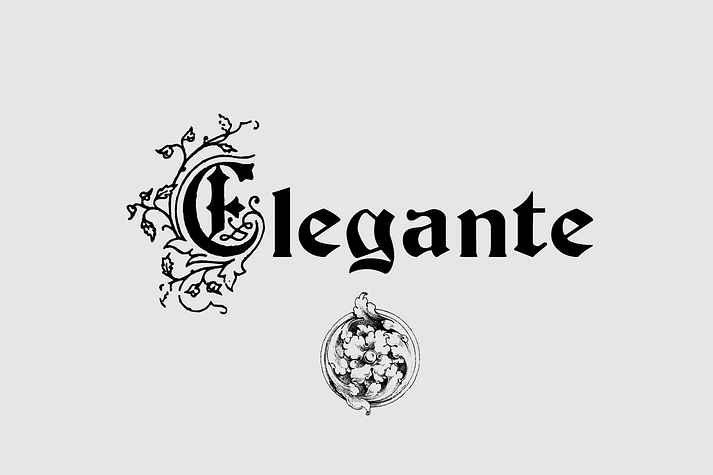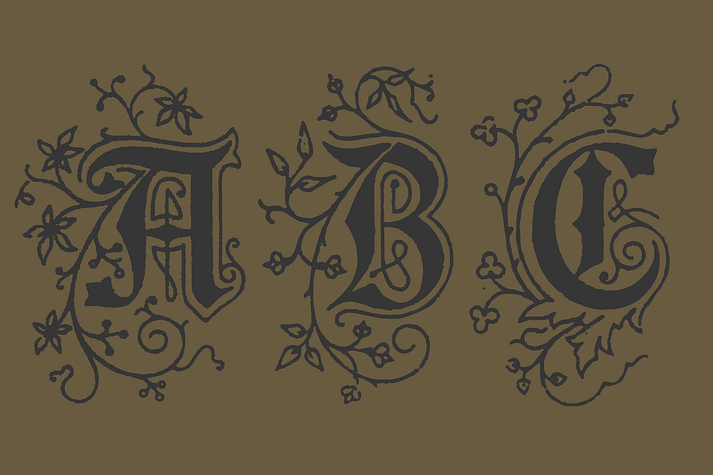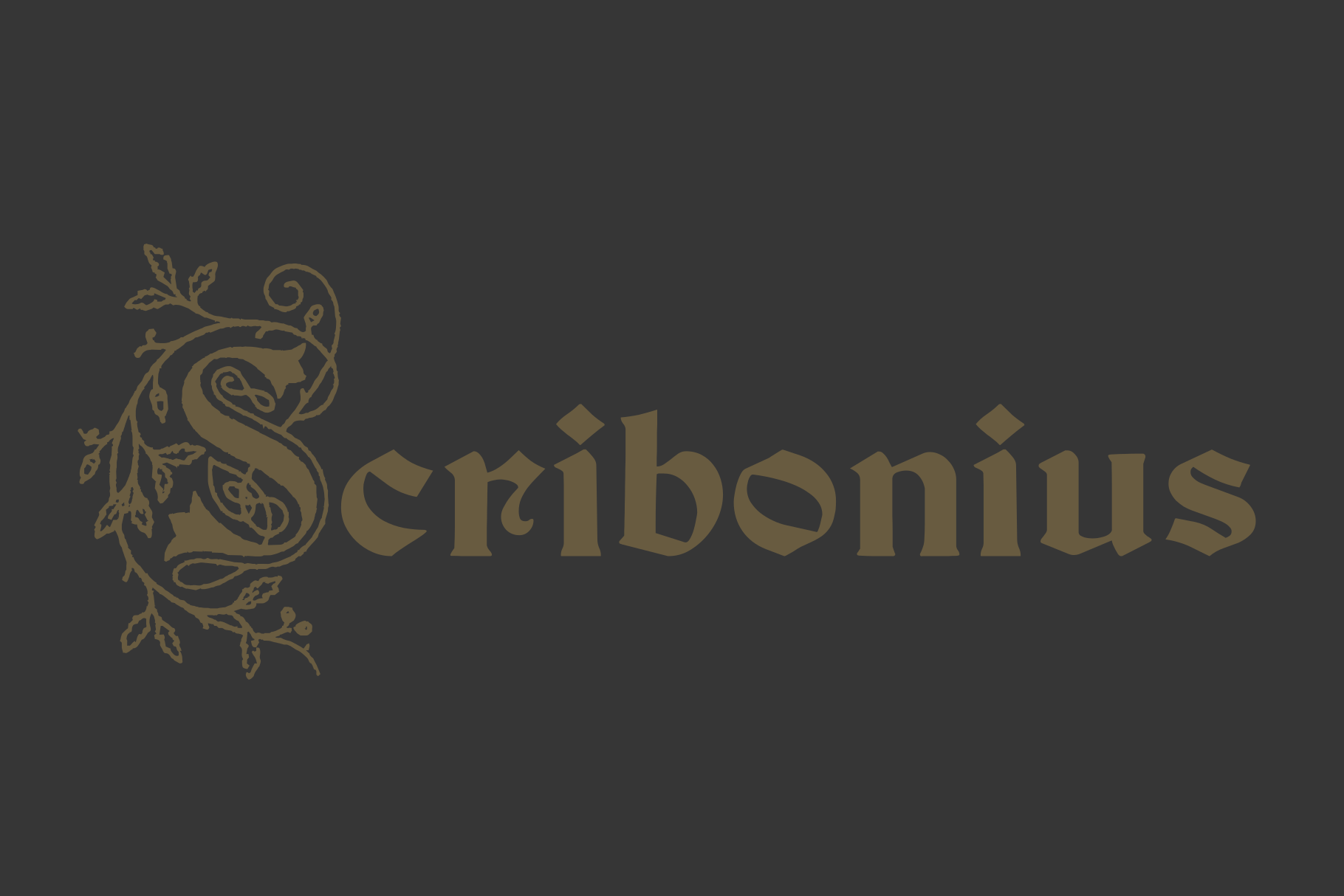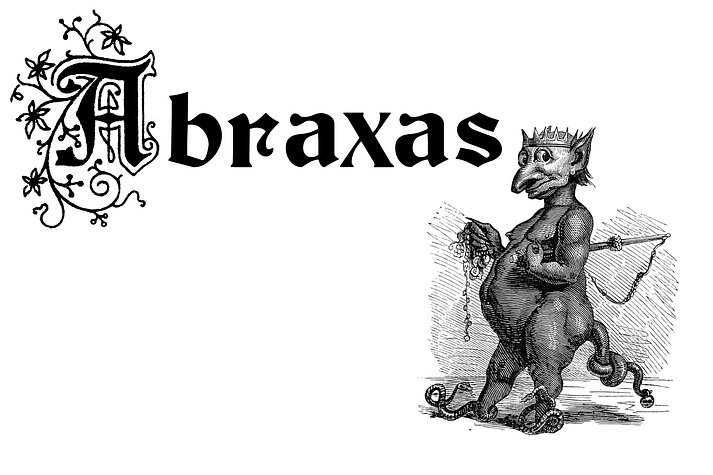
Scriboinus GTSLB
Designed by Paulo W, Scriboinus GTSLB is a monograms font family published by Intellecta Design.
An elegant and clean blackletter font with ornamented initials. It is suitable for any bold branding, product packaging, invitation, quote, t-shirt, label, poster, logo that you wish to develop